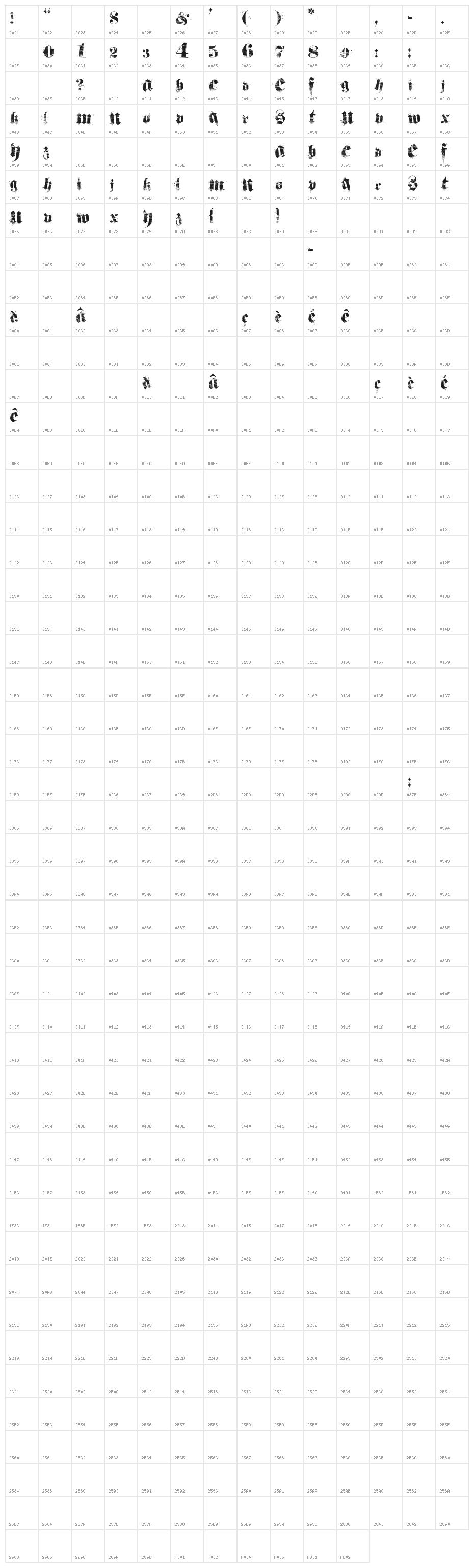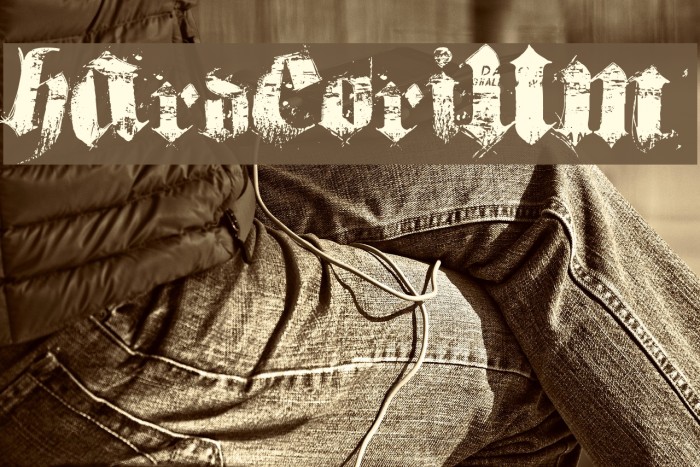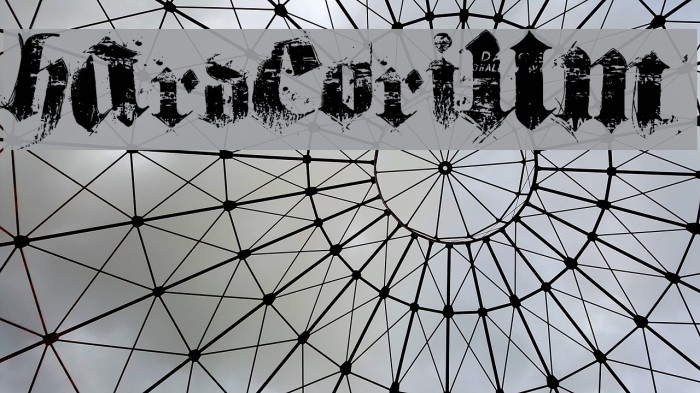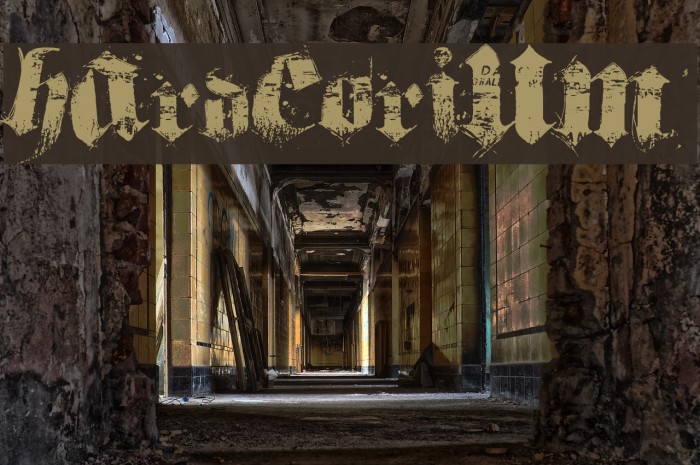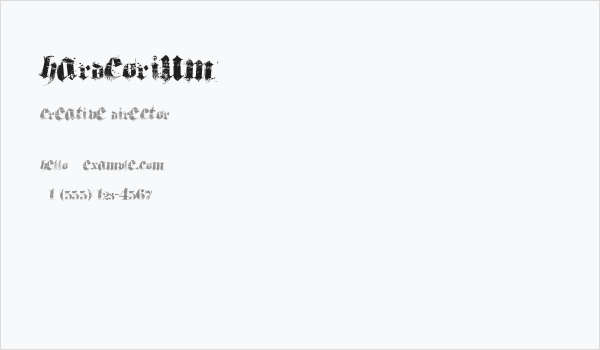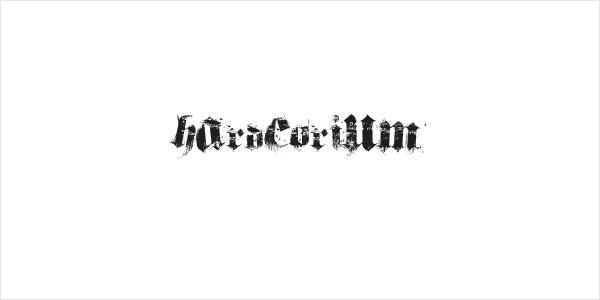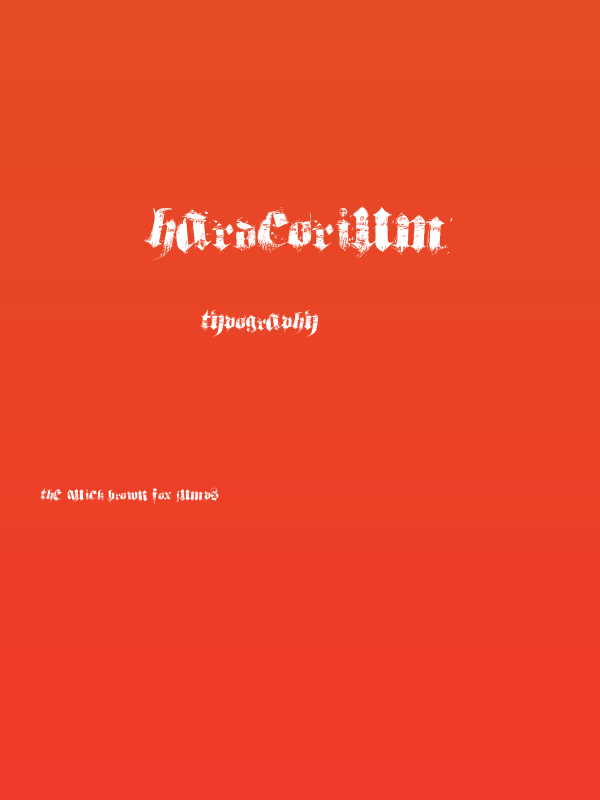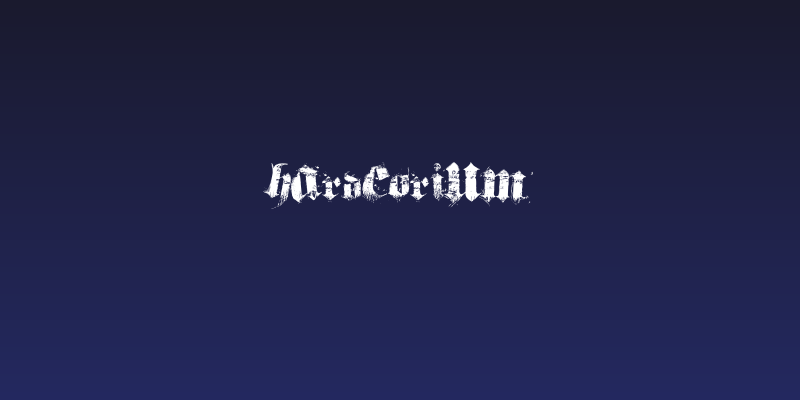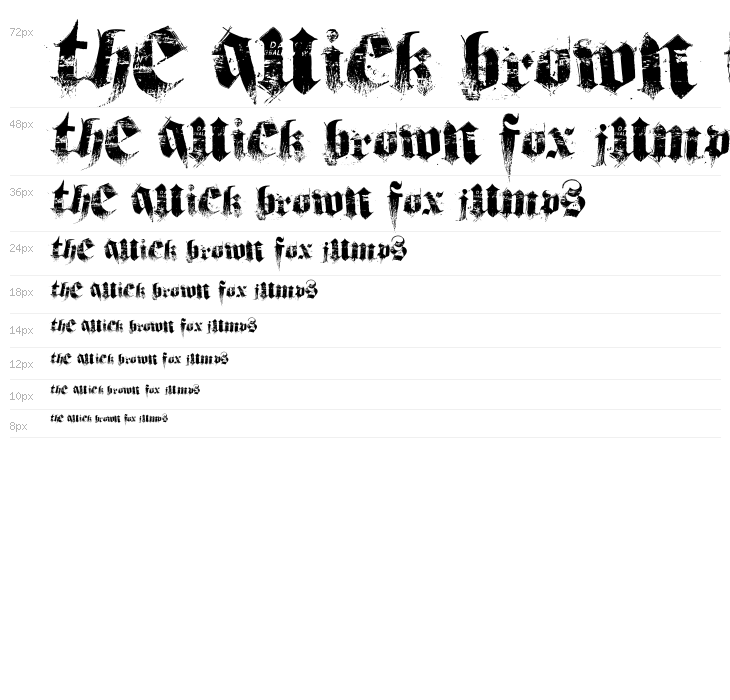
hardcorium Font
hardcorium Description
This font features a bold, distressed style with a strong gothic influence. The characters are heavily textured, giving them a worn, grunge appearance that adds a sense of ruggedness and edge. The uppercase and lowercase letters maintain a consistent style, with sharp, angular lines and pointed serifs that enhance the gothic aesthetic. The numbers and special characters follow the same design principles, ensuring a cohesive look across all elements. This font is ideal for projects that require a dramatic, eye-catching typeface with a vintage or rebellious vibe.
| Overall Style | Vintage, Decorative |
| Proposed Projects | Ideal for music album covers, posters, branding for edgy products, or any design needing a dramatic, vintage look. |